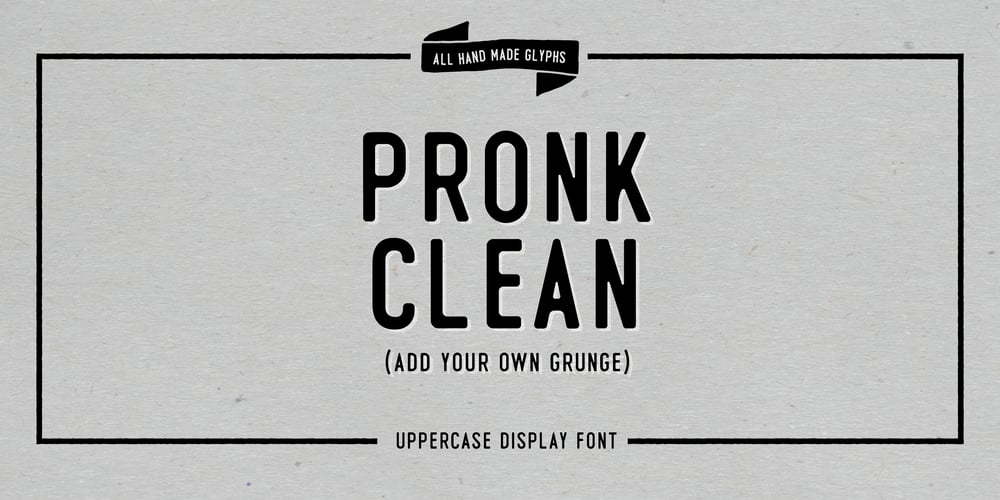
PRONK Clean Font Family was designed by Adam Greasley and published by wearecolt. PRONK Clean contains 1 styles and family package options. Introducing PRONK. By Wearecolt. This is a tall, bold and round display font designed for retro-modern designs. This font is perfect for your next logo design or magazine titles. Taking inspiration from many tall fonts and American number plates i created a display font that would be my ‘go to’ for a neat tall, bold font. I also wanted something which would be able to take a good amount of treatment like stamp effects and grunge. The PRONK pack includes: .otf and standard webfont file types